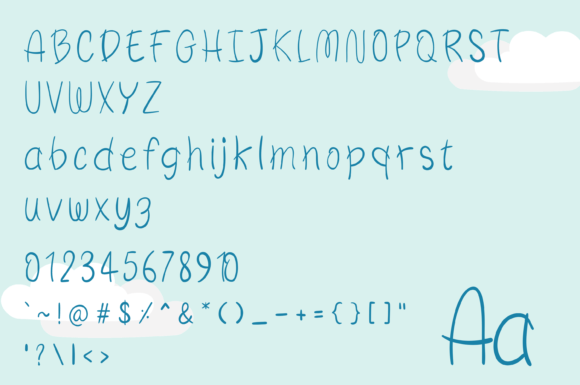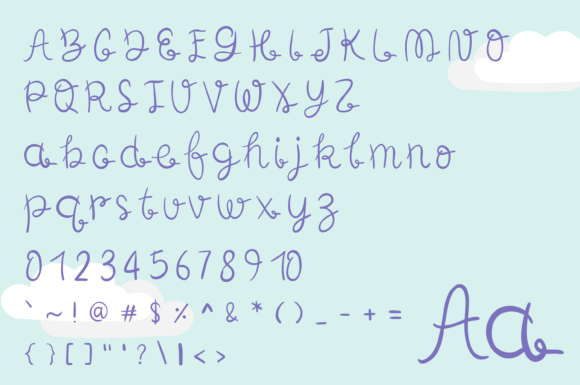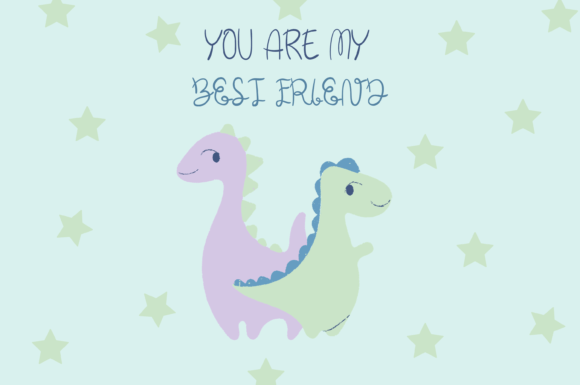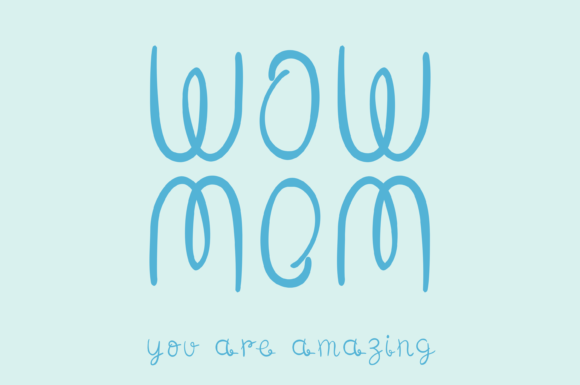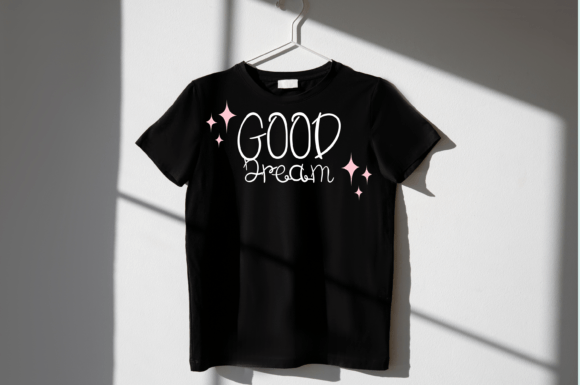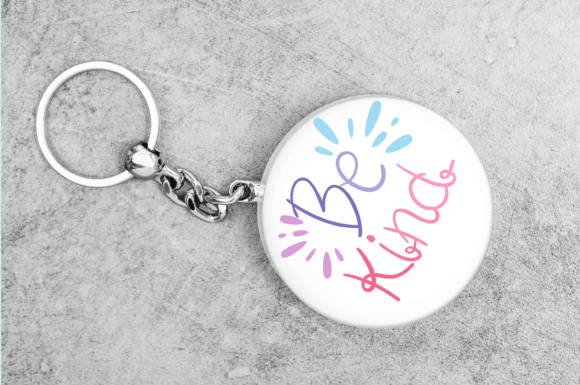
Introduction to Beautiful Sunshine Font
Have you ever been working on a creative project, feeling stuck, and suddenly stumbled upon the perfect design resource that sets your imagination free? That’s exactly what happened to me when I discovered the Beautiful Sunshine Font. Its lively and whimsical handwritten style instantly lifted my mood and inspired me to think outside the box.
As a designer, I know how valuable it is to have access to high-quality fonts that can add a personal touch to our work. The Beautiful Sunshine Font is one of those hidden gems that can bring a carefree and joyful vibe to your designs. Whether you’re working on a poster, invitation, or any other creative project, this font is sure to add a touch of spontaneity and fun. And the best part? You can download it for free, making it an accessible design resource for anyone.
With its transparent background and curly characters, the Beautiful Sunshine Font is perfect for adding a breezy feel to your text. Whether you’re a seasoned designer or just starting out, this font is sure to bring a smile to your face and inspire your next creative project.
Key Features of Beautiful Sunshine Font
- High-quality design resource ideal for creative projects, offering a beautiful and vibrant aesthetic.
- Unique, hand-drawn style with a transparent background, allowing for maximum flexibility in design applications.
- Perfect for use in digital design projects, such as website headers, social media graphics, and marketing materials.
Honest Review: Beautiful Sunshine Font
I recently stumbled upon the Beautiful Sunshine Font and was immediately drawn to its vibrant and playful style. As a designer, I’m always on the lookout for high-quality design resources that can elevate my creative projects.
What works well for me about the Beautiful Sunshine Font is its versatility. I can use it for a variety of projects, from logos and branding to digital graphics and social media posts. The font is also available for free download, which is a definite bonus.
- ✨ High-quality design: The Beautiful Sunshine Font is beautifully crafted, with a transparent background that makes it easy to use on any background.
However, I do have a few limitations to mention:
- ⚠️ Not suitable for formal projects: The font’s playful style may not be suitable for more formal or professional projects.
Overall, I’m impressed with the Beautiful Sunshine Font and would definitely recommend it to designers looking for a fun and versatile font for their creative projects.
The Beautiful Sunshine Font is a versatile design resource that can be used in a variety of creative projects, including wedding invitations, business cards, and social media graphics. Its high-quality design and transparent background make it perfect for adding a touch of elegance and sophistication to any design.